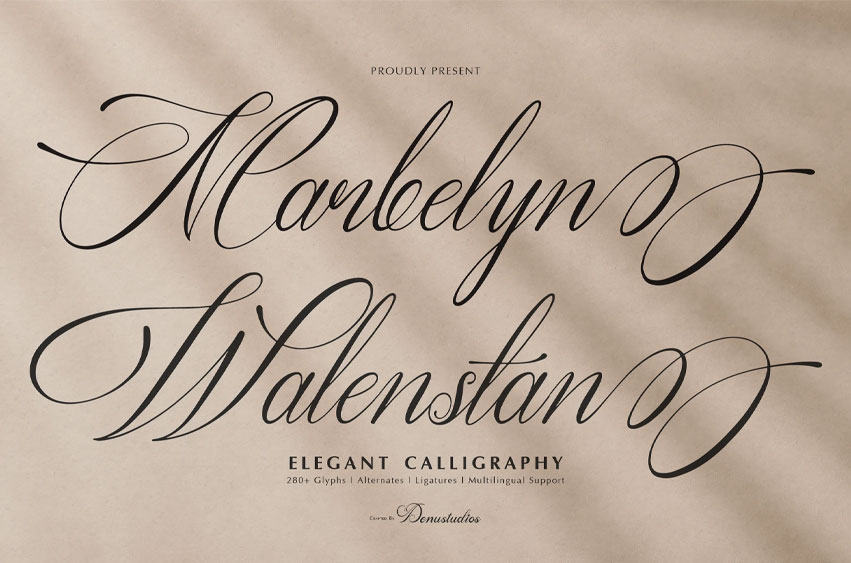
Marbelyn Walenstan Font
Marbelyn Walenstan Font is an elegant calligraphy font featuring luxurious swashes and refined curves. Perfect for upscale branding, wedding stationery, and signature designs, this font includes over 280 glyphs with alternates and ligatures, offering endless versatility for sophisticated typography.
Add a touch of grace and exclusivity to your projects with Marbelyn Walenstan.